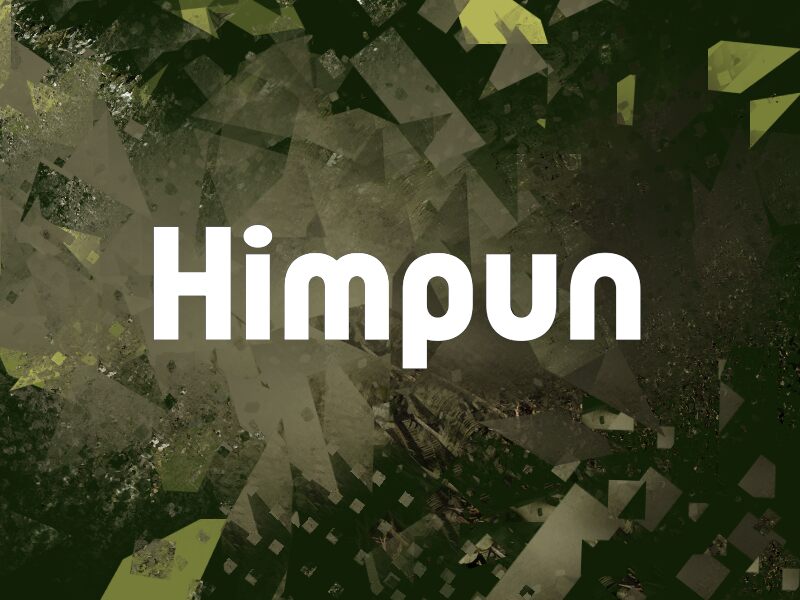
Himpun
Himpun font, by wep, is a round-edged sans serif with clean geometric shapes that appear simple yet elegant. The uppercase letters have more squared features than subtly rounded lowercase ones. The free font has a combination of strait and subtle bent.
This sans serif suits signage, websites, branding, packaging designs, product labels, projects related to fashion or beauty products etc. Its also useful for display and text sizes across magazines and book covers more.